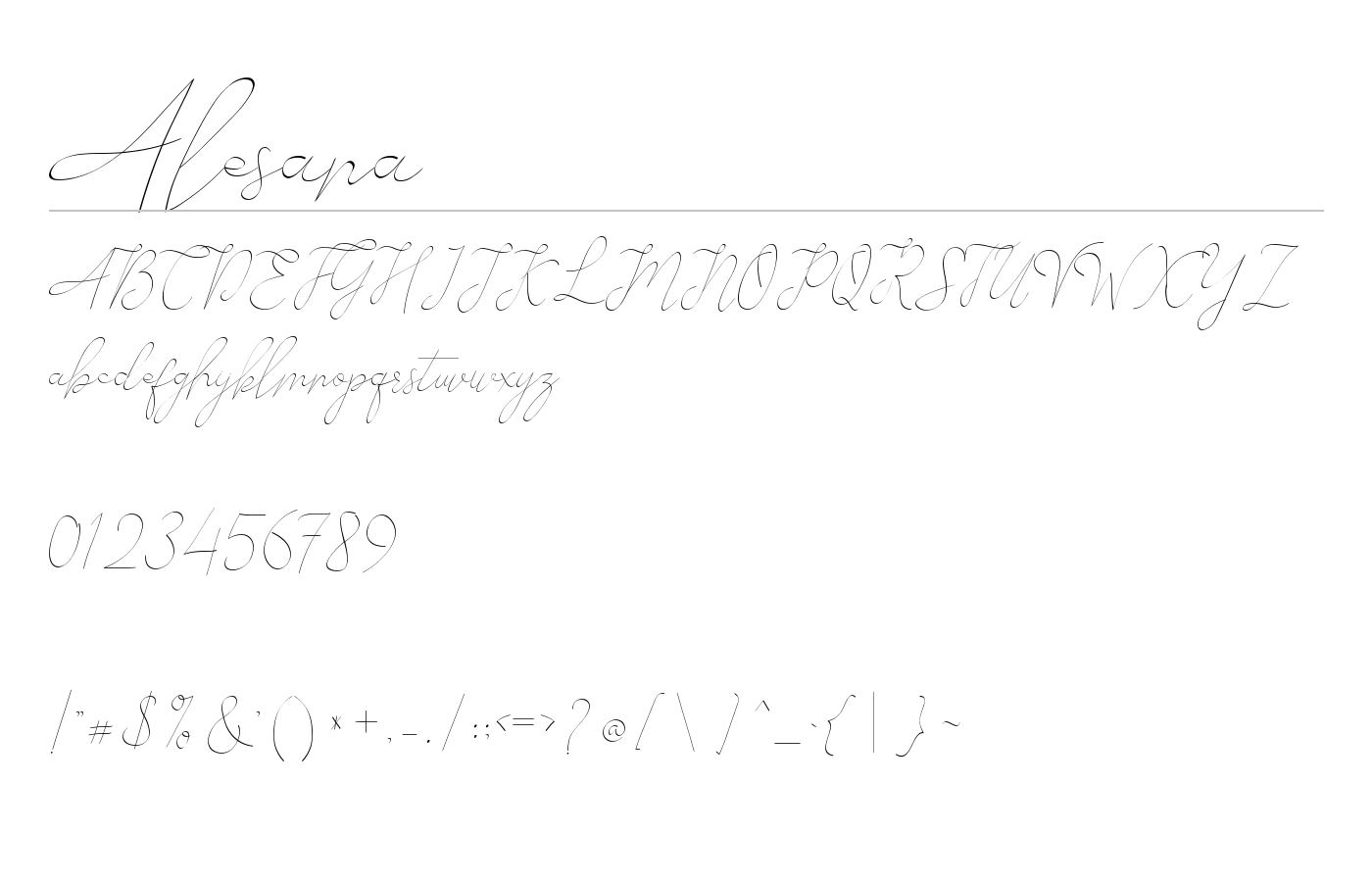
Alesana is a delicate, elegant script font with ultra-thin strokes that evoke a refined and graceful handwriting style. Its tall, flowing letterforms with subtle loops and flourishes make it perfect for sophisticated branding, wedding invitations, and luxury editorial designs where a soft, romantic mood is desired. This font works beautifully for decorative headlines and accents, adding a touch of charm and finesse without overpowering the overall design.
Alesana Font
About Alesana Font